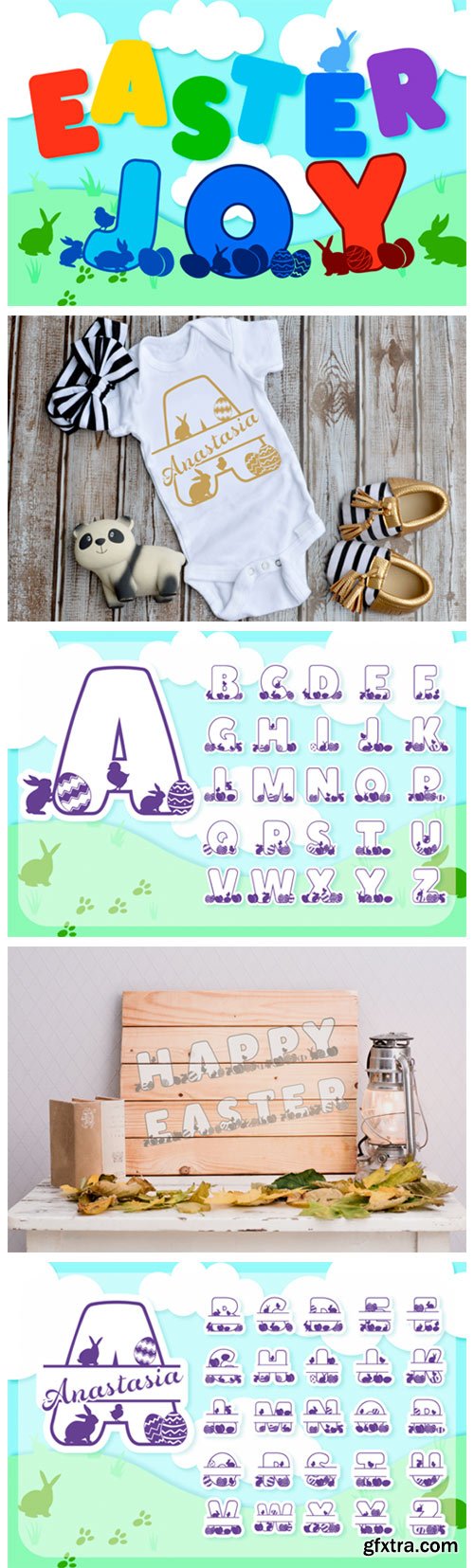
Easter Joy Font
Easter Joy is a lovely Easter-themed font with lots of bunnies, eggs & chicks. It is drawn so that the base of the letters creates an Easter meadow. The letters are outline only to make it look less cramped.